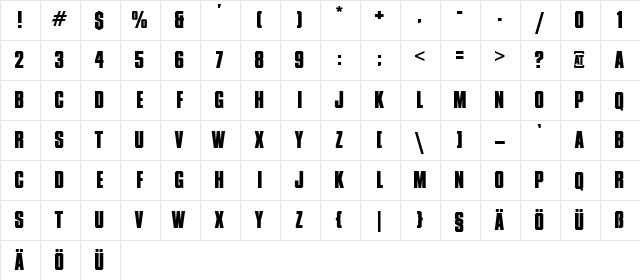
XXII DONT-MESS-WITH-VIKINGS HARDCORE
| Designer | Lecter Johnson |
Design Context for XXII DONT-MESS-WITH-VIKINGS Typeface
XXII DONT-MESS-WITH-VIKINGS offers clean, dependable letterforms without strong stylistic allegiance, making it a practical choice for designers who need flexibility.
Pro Tip: Pair XXII DONT-MESS-WITH-VIKINGS with a font of contrasting weight or personality to build a more expressive typographic hierarchy.